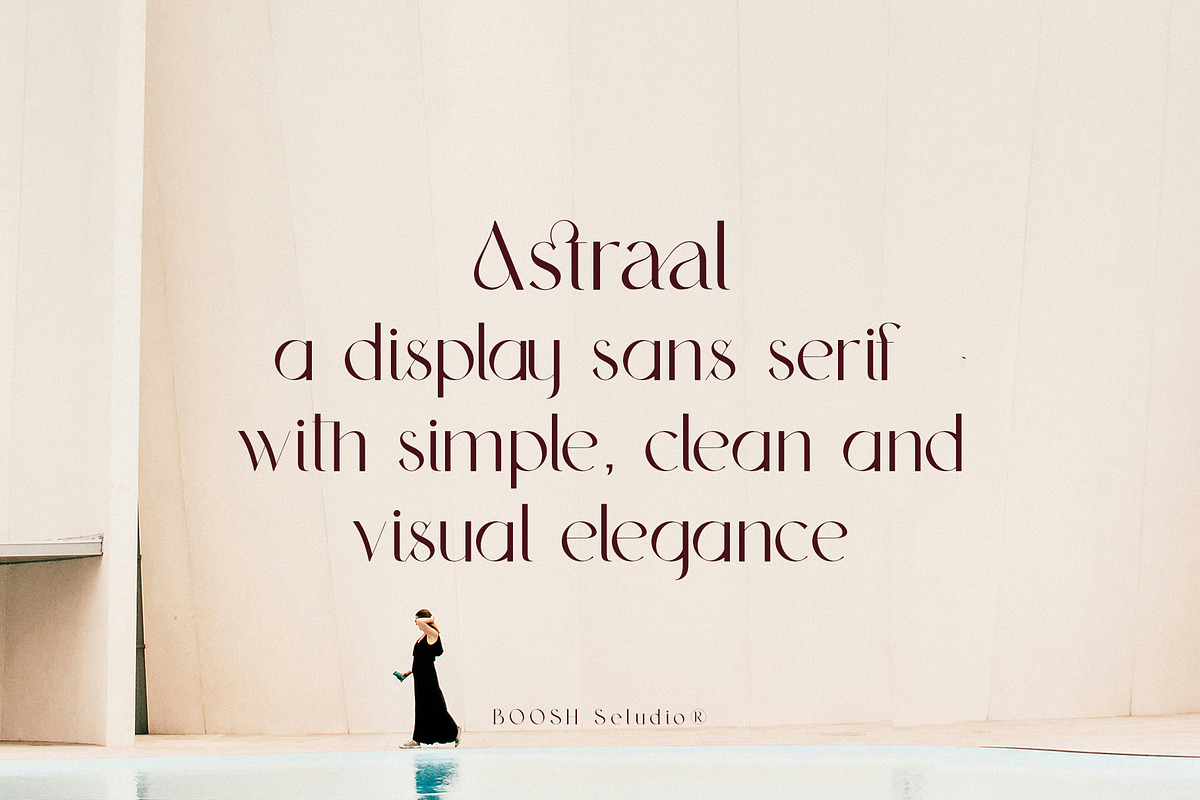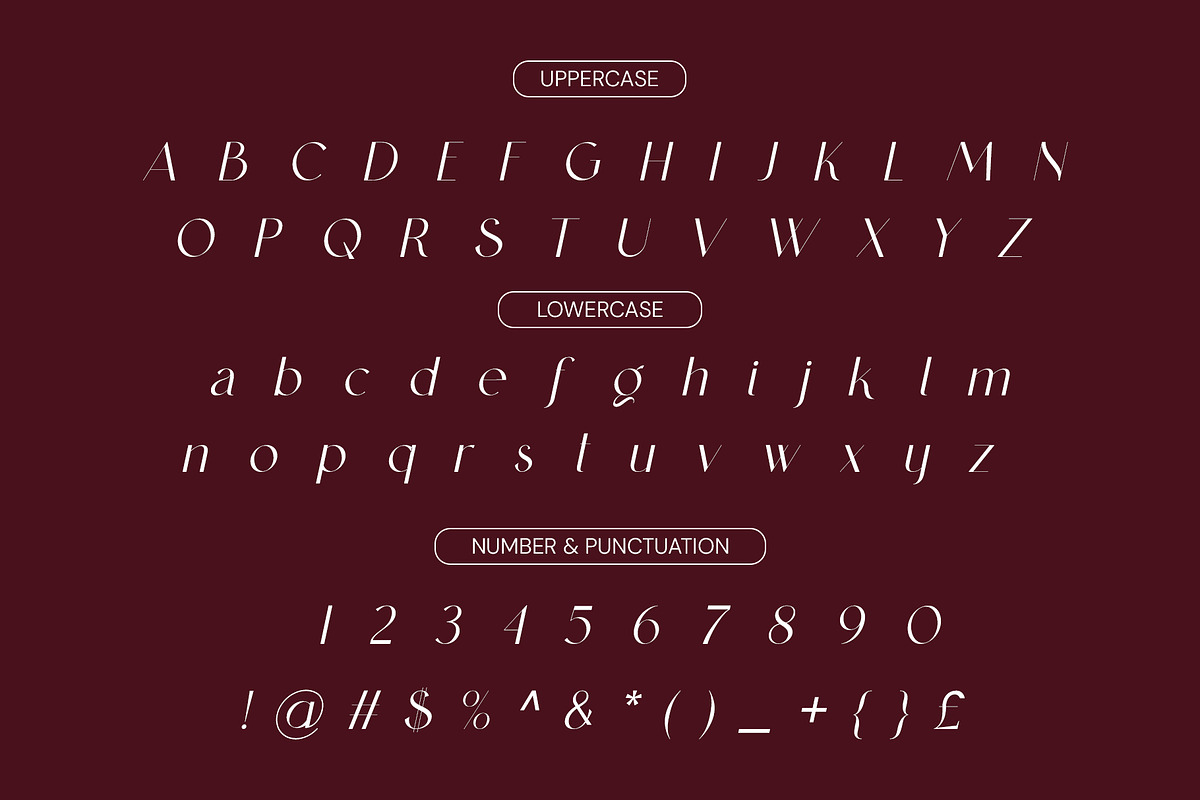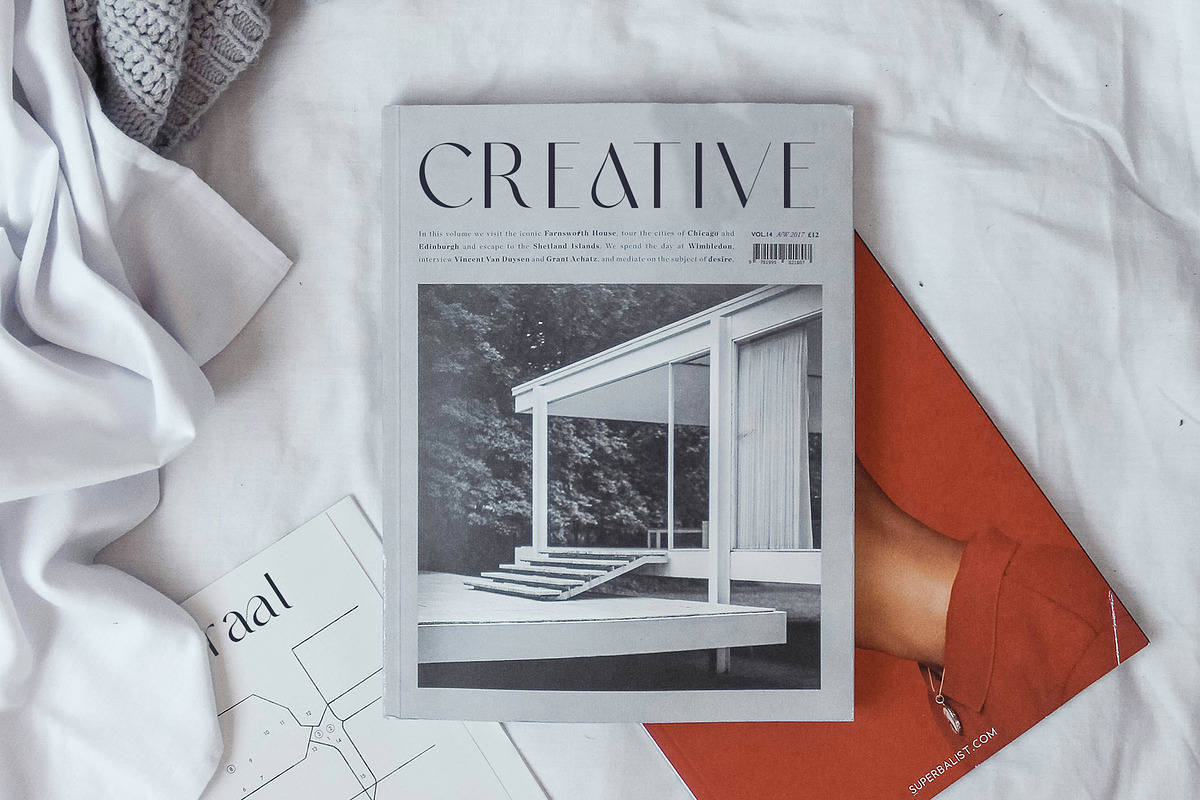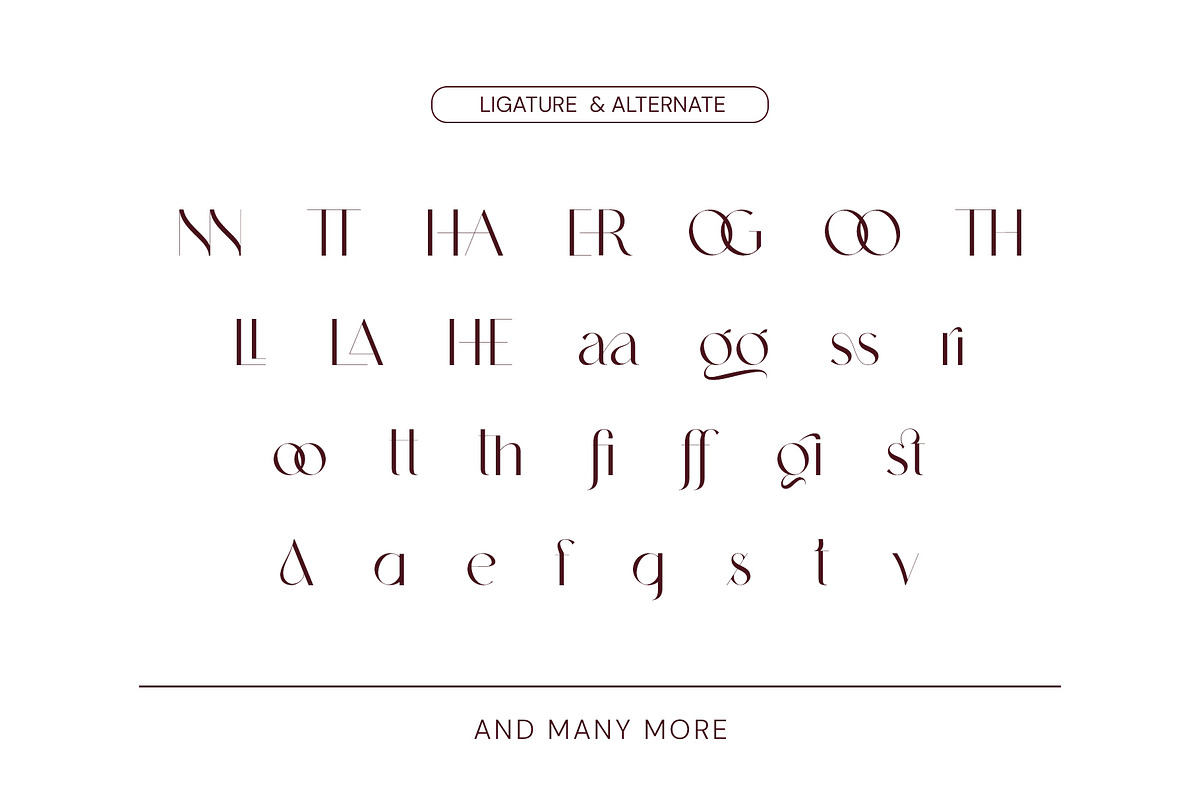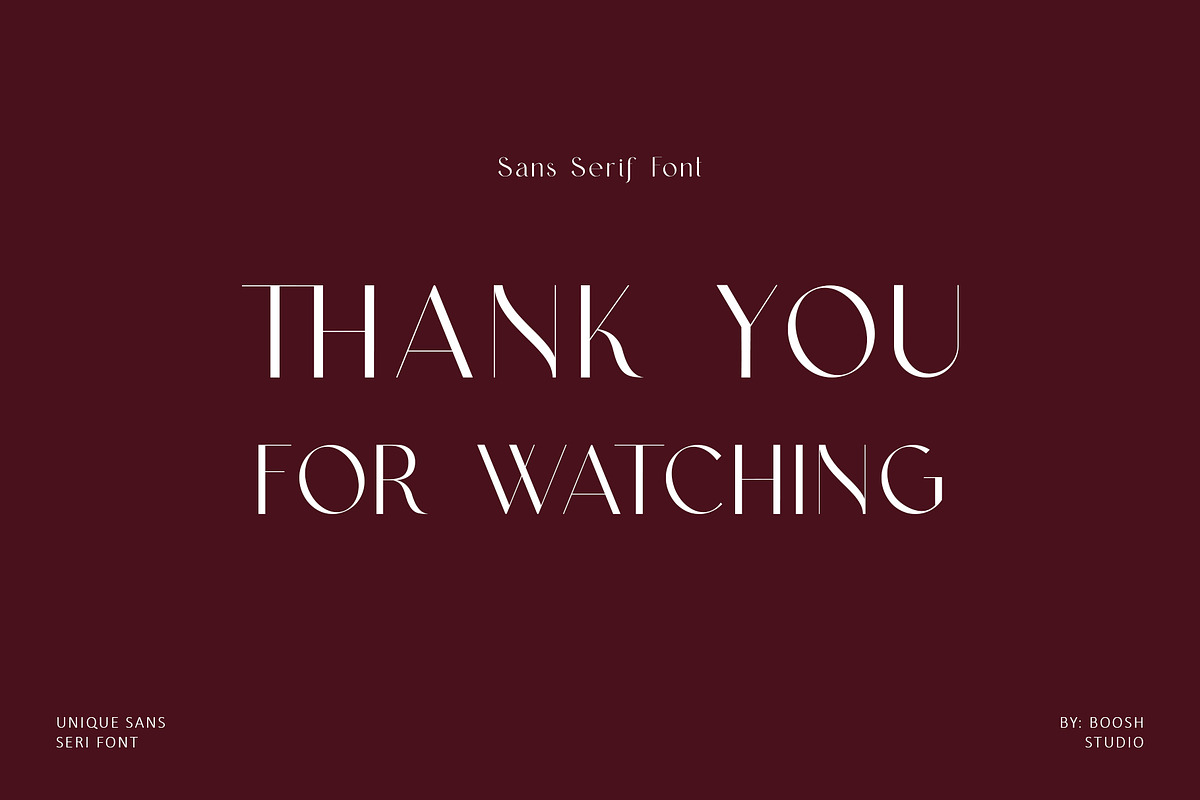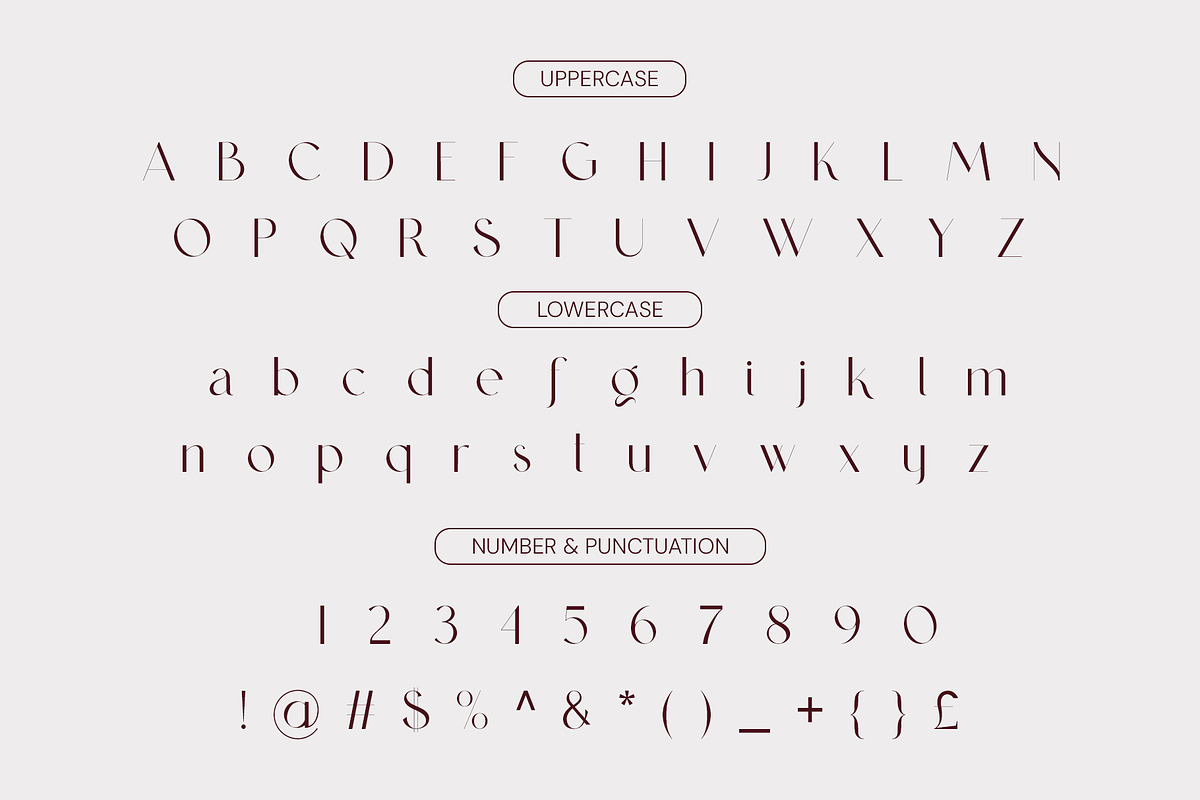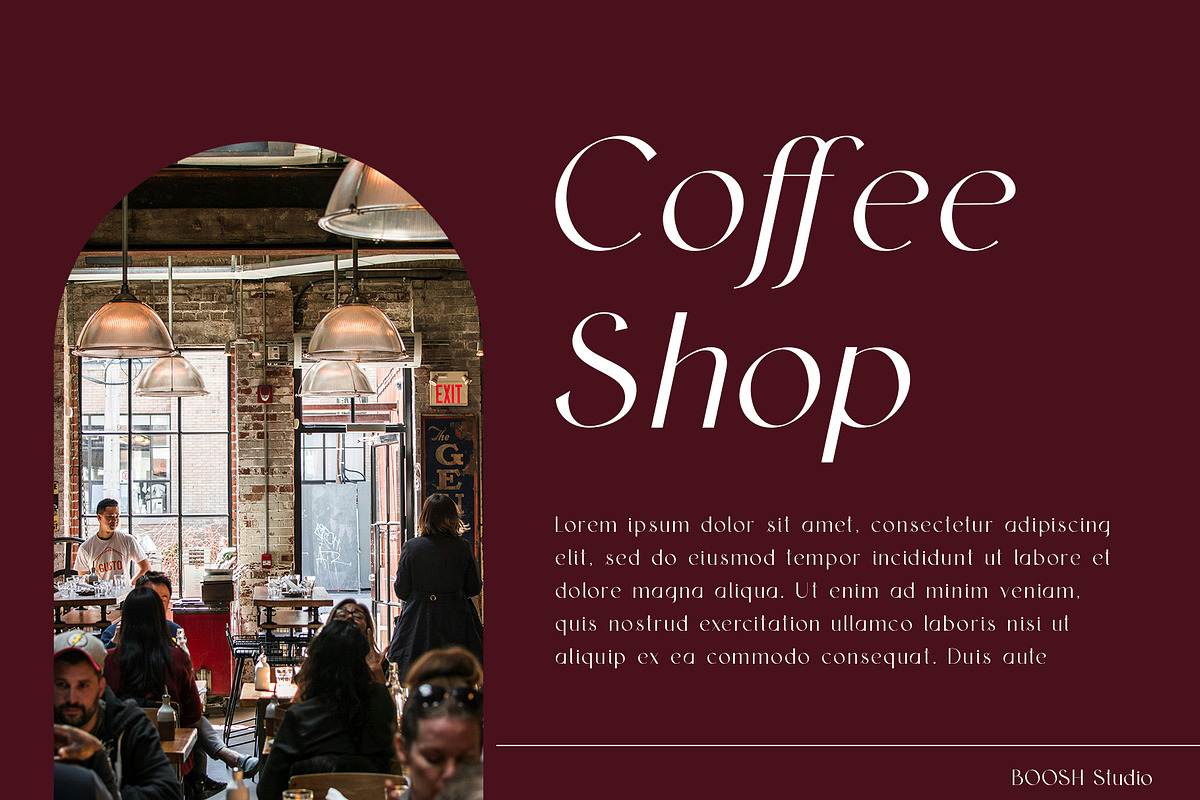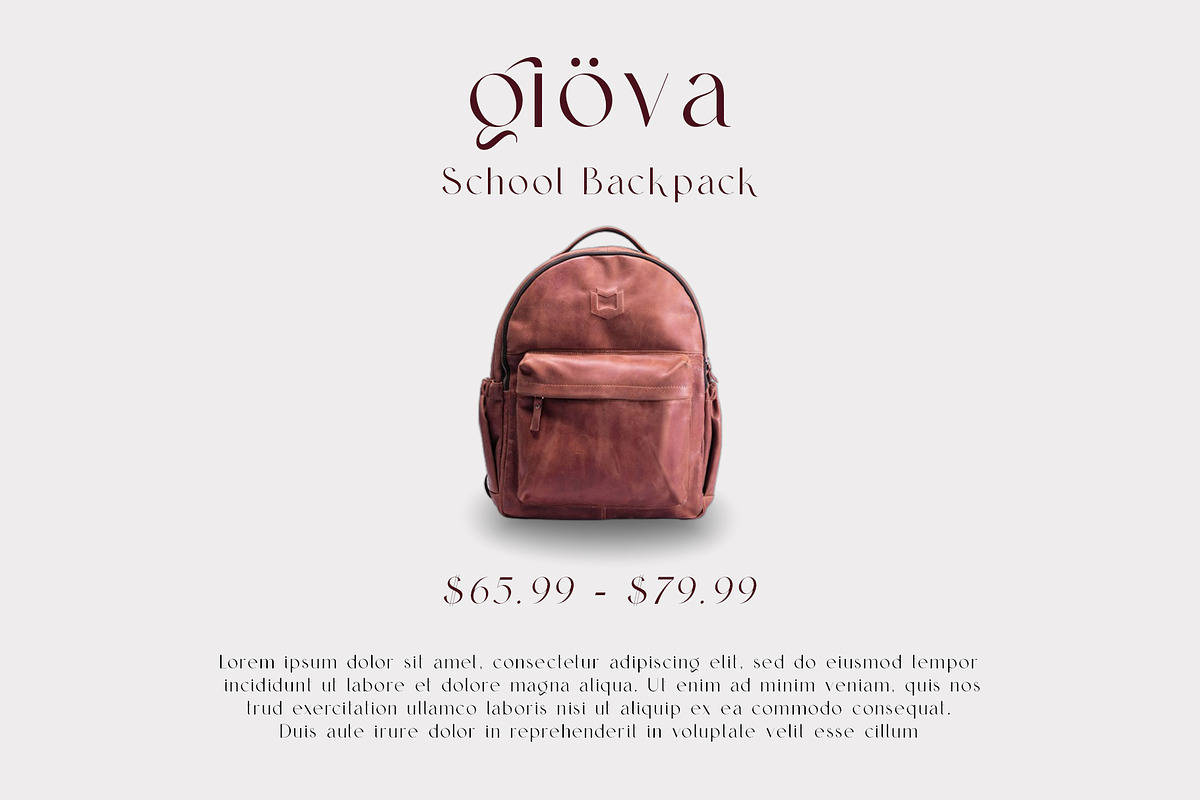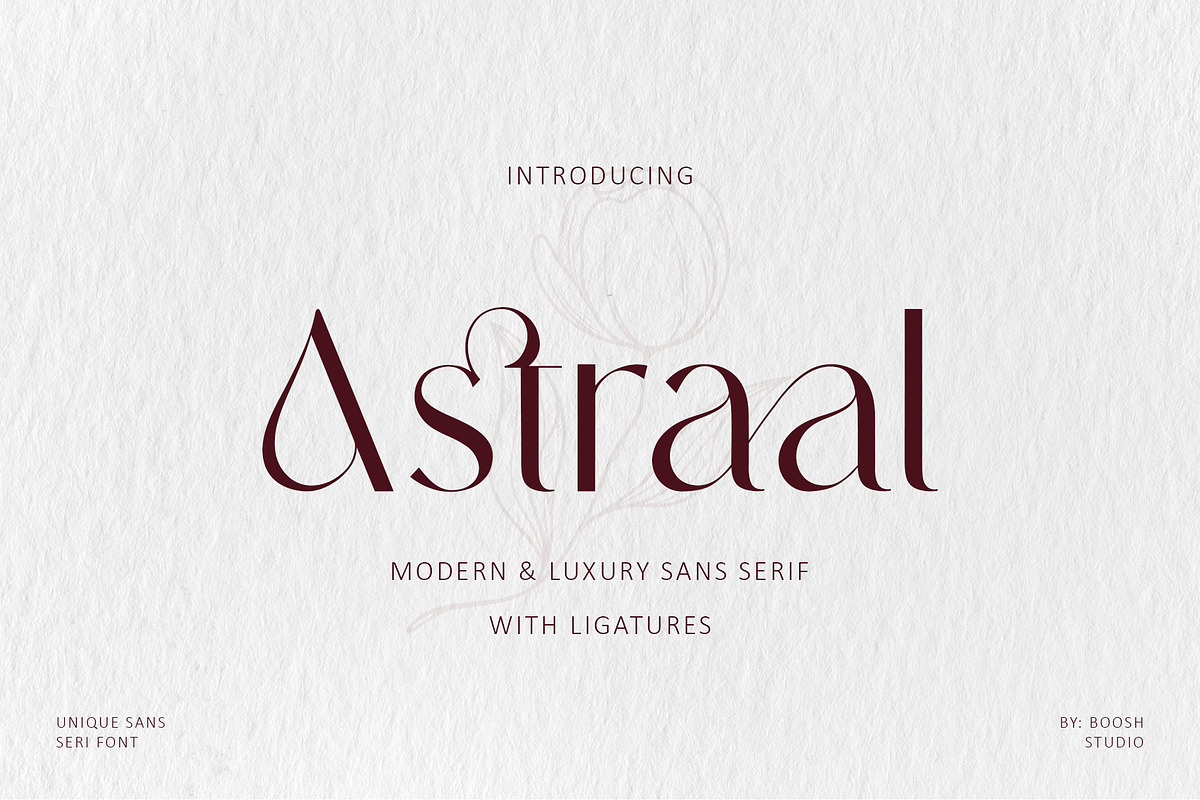
Astraal - Modern & Luxury
Astraal Sans Serif is a balanced, smooth, elegant and stylish sans serif font. This typeface has two main styles, Regular and Italic, It has a beautiful character. Very suitable to be combined with invitation card designs, company logos, film titles, film names, business cards, book titles, brand names and various other designs.